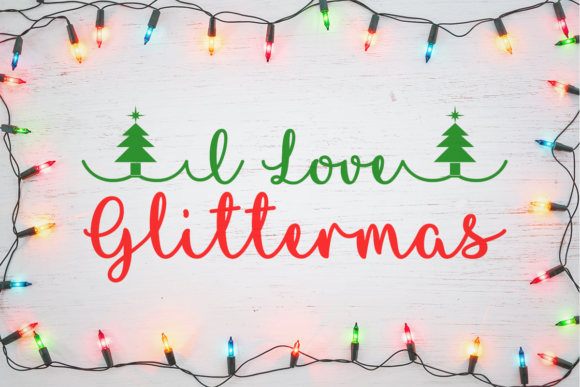
The Sparkle of Creativity: Unlocking I Love Glittermas Font
Enter I Love Glittermas Font, a delightful handwritten font that’s bursting with festive cheer. With its cute and playful elements, this font is the perfect companion for creating spectacular designs that will make your audience’s hearts skip a beat. Whether you’re designing holiday cards, gift tags, or social media graphics, I Love Glittermas Font is sure to add that extra sparkle to your work.
I Love Glittermas Font Key Features
- Font Family: I Love Glittermas
- Character Count: 256 characters (including uppercase and lowercase letters, numbers, and special characters)
- Unique Characteristics: Glitter-themed ornaments, decorations, and swashes to create a festive atmosphere
I Love Glittermas Font Review
I recently had the chance to work with the “I Love Glittermas Font”, and I must say it’s a unique addition to any design project. ✨ The font’s playful, festive vibe is perfect for holiday-themed designs, and it’s sure to grab the user’s attention. ✨ The bold, cursive style is well-executed, and the subtle glitter effect adds a fun touch.
One of the things I appreciate about this font is its versatility. ✨ It can be used for a variety of projects, from social media graphics to wedding invitations. However, I do have a few concerns:
- ⚠️ Limited character set: The font only includes uppercase and lowercase letters, with a few punctuation marks. This may be a problem for designers who need to use the font for more complex projects.
- ⚠️ Distortion at large sizes: When I tried using the font at larger sizes, the glitter effect became distorted and lost its impact.
Overall, I think the “I Love Glittermas Font” is a fun, creative addition to any design project. While it has some limitations, it’s well-suited for projects that require a playful, festive vibe. Just be aware of the potential issues mentioned above, and you’ll be golden.
The “I Love Glittermas Font” is perfect for creating eye-catching and festive designs, especially around the holiday season. Use it to add a touch of sparkle to your social media graphics, party invitations, or holiday cards.
For optimal results, use the font in conjunction with bright and bold colors to create a cohesive and eye-catching design.